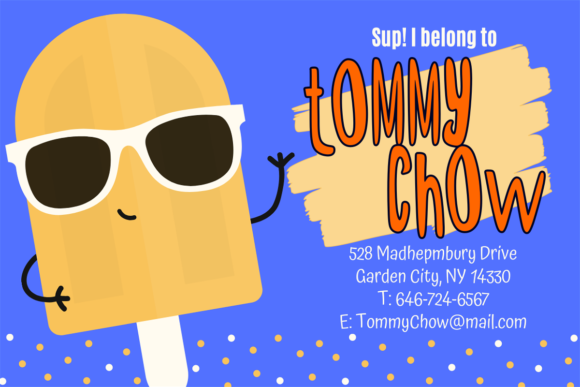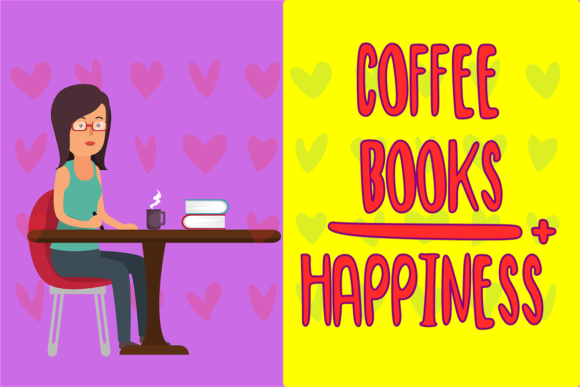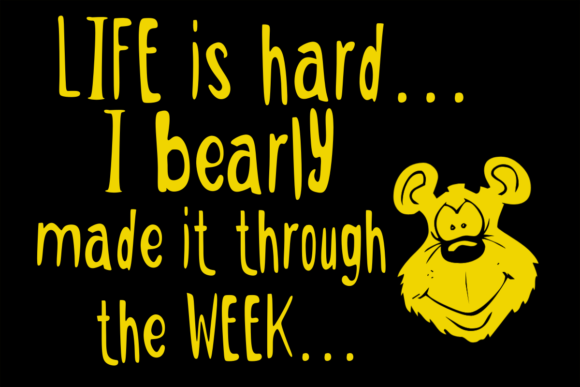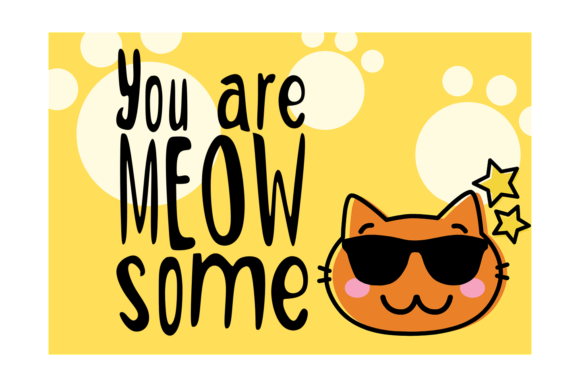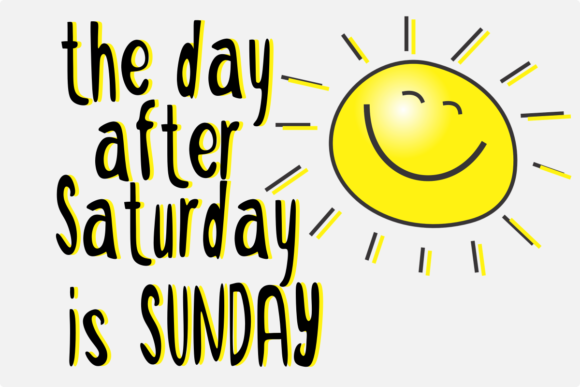
Unlock the Quirky Charm of Your Designs
You know that moment when inspiration strikes, and you finally find the perfect font to bring your creative idea to life? It’s like the whole project clicks into place, and you can’t wait to share it with the world. For designers, finding the right font can be a game-changer. That’s where After Saturday Font comes in – a simple yet quirky display font that’s sure to add a touch of personality to your designs.
With its unique character and effortless charm, After Saturday Font is the perfect addition to any creative project. Whether you’re working on a logo, social media campaign, or advertising material, this font is sure to make your ideas stand out from the crowd. As a designer, you’ll appreciate the versatility and playfulness that After Saturday Font brings to the table.
After Saturday Font Key Features
- Font Family: After Saturday Font is a sans-serif typeface designed by Typetype.
- Unique Characteristics: Features a modern and clean design, with a subtle rounded edge and an open feel, making it ideal for titles, headings, and body text.
Designer Review: After Saturday Font
Overall, I think the After Saturday Font is a solid choice for designers looking for a unique and stylish font. Here are some of its strengths: ✨
- Highly legible: The font is designed to be easy to read, even at smaller font sizes.
- Versatile: After Saturday Font can be used for a wide range of applications, from body text to headings.
- Unique flair: The font has a distinctive feel that sets it apart from more generic sans-serif fonts.
- Limited language support: While the font includes support for many languages, it may not be suitable for more complex languages like Arabic or Chinese.
- May not be suitable for small text: While the font is highly legible, it may not be the best choice for very small text sizes.
In my opinion, the After Saturday Font is a great choice for designers who want a stylish and versatile font that can be used for a wide range of applications. While it may have some limitations, its unique feel and high legibility make it a great addition to any design project.
Tips for Getting the Most Out of the After Saturday Font
The After Saturday Font is a versatile and elegant font that can be used in a variety of design projects. Here are some tips for getting the most out of this font:
- Use the font in conjunction with other elegant fonts to create a sophisticated look.
- Use the font in headings and titles to draw attention to important information.
The After Saturday Font is commonly used in: